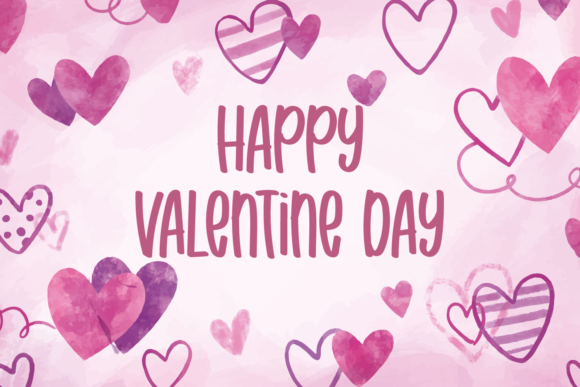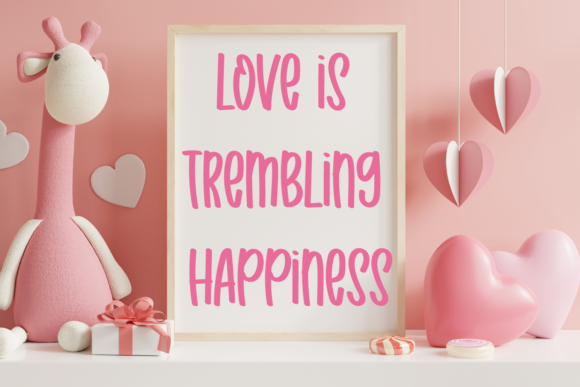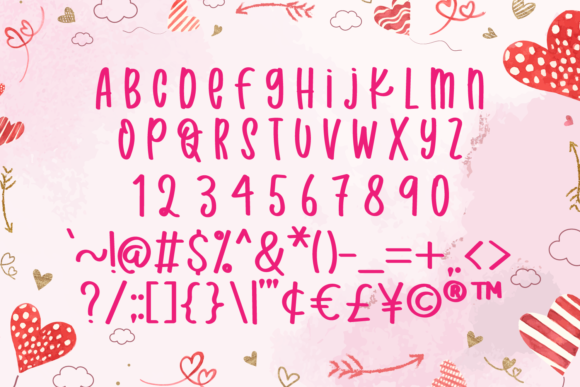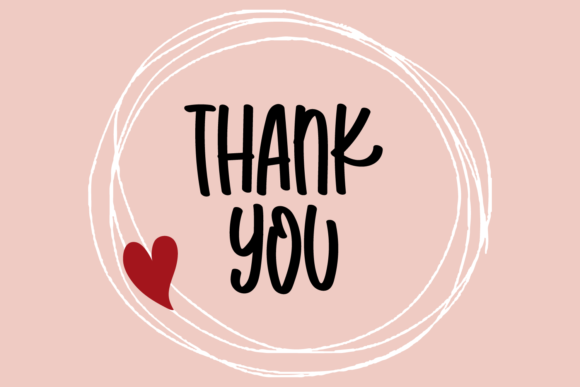
Adding a Personal Touch: The Charm of Handwritten Fonts
In the world of typography, fonts play a crucial role in conveying the tone and personality of a design project. Among the numerous font styles available, handwritten fonts have gained immense popularity for their unique, personal, and emotive appeal. One such font that has captured the hearts of designers and crafters alike is the Handwritten font, described as “a sweet and friendly script font” that adds a delightful spark to any design.
The Allure of Handwritten Fonts
Handwritten fonts, as the name suggests, mimic the natural, flowing script of handwriting. They bring a sense of warmth, approachability, and authenticity to a design, making it more relatable and engaging. Unlike traditional serif or sans-serif fonts, handwritten fonts have a distinct character that sets them apart. Each letter seems to dance along the baseline, creating a rhythmic flow that draws the reader in.
Introducing the Handwritten Font
The Handwritten font is a beautiful example of a sweet and friendly script font. Its characters are carefully crafted to exude a sense of playfulness and charm, making it perfect for a wide range of design projects. Whether you’re working on a children’s book, a greeting card, or a branding campaign, this font is sure to add a touch of whimsy and personality to your design.
Key Features of the Handwritten Font
- Unique Character Set: The Handwritten font features a distinctive character set that is both elegant and playful. Each letter is designed to flow smoothly into the next, creating a beautiful, handwritten effect.
- Baseline Dancing: One of the standout features of this font is the way its characters dance along the baseline. This creates a lively, dynamic effect that adds energy and movement to your design.
- Versatility: The Handwritten font is incredibly versatile and can be used for a wide range of design projects, from digital media to print materials.
- Ease of Use: This font is easy to read and works well in various sizes, making it perfect for both headlines and body text.
Using the Handwritten Font in Design Projects
The Handwritten font can be used in a variety of design projects, including:
- Branding and Packaging: Add a personal touch to your brand’s identity with this charming font. It’s perfect for product labels, packaging, and business cards.
- Stationery and Invitations: Create beautiful, one-of-a-kind stationery and invitations that showcase your personality and style.
- Digital Media: Use the Handwritten font in digital media, such as social media graphics, blog posts, and email newsletters, to add a touch of warmth and personality.
- Crafting and DIY Projects: This font is perfect for crafters and DIY enthusiasts who want to add a personal touch to their projects, such as handmade cards, scrapbooking, and journaling.
Tips for Working with Handwritten Fonts
Here are some tips for working with handwritten fonts like the Handwritten font:
- Use it Sparingly: While handwritten fonts are beautiful, they can be overwhelming if overused. Use them sparingly to add emphasis and create visual interest.
- Pair it with Other Fonts: Experiment with pairing the Handwritten font with other fonts to create a unique and visually appealing combination.
- Adjust the Size and Color: Play around with different sizes and colors to find the perfect combination that works for your design.
The Handwritten font is a sweet and friendly script font that can add a delightful spark to any design project. Its unique character set, baseline dancing, and versatility make it perfect for a wide range of applications. Whether you’re a designer, crafter, or DIY enthusiast, this font is sure to inspire your creativity and help you create beautiful, one-of-a-kind designs.